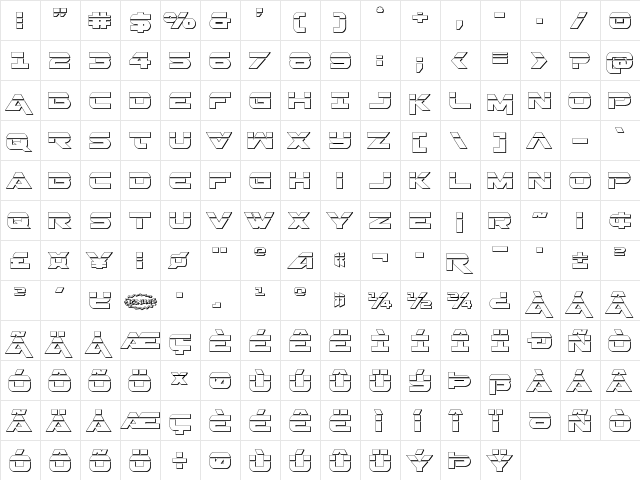
Gemina Laser 3D Regular
Design Context for Gemina Laser 3D Typeface
Gemina Laser 3D is a composed and adaptable typeface that performs quietly and consistently across a wide range of design contexts.